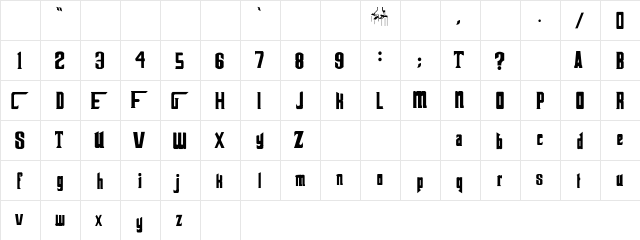
The Godfather Regular
Design Context for The Godfather Typeface
The Godfather is a composed and adaptable typeface that performs quietly and consistently across a wide range of design contexts.